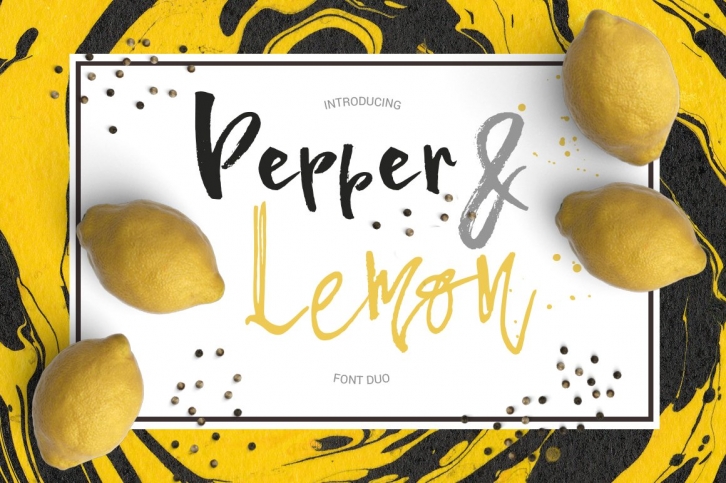
Pepper and Lemon is a font duo with a character like no other: Pepper is a highly-texturized brush font, Lemon is a marker font with a unique look. You can use them together (they work the best in branding & logo design, check out examples in the previews) or each one individually.
Pepper font has a full set of lowercase alternates (Lemon has few of those too), all extra characters are PUA encoded - that means that you will be able to access all characters from any application you’re using. Both fonts support most of european languages.